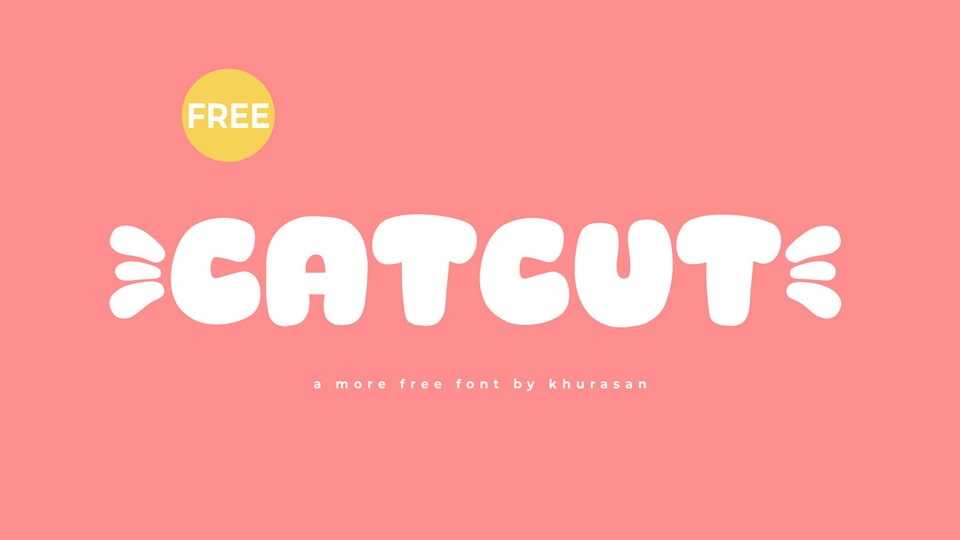
Download Catcut font, a playful and bubbly hand-drawn cartoon typeface that infuses your designs with an irresistibly joyful and lighthearted spirit. This font is the perfect choice for projects that demand a friendly and animated touch, from comic book captions to vibrant children’s book illustrations.